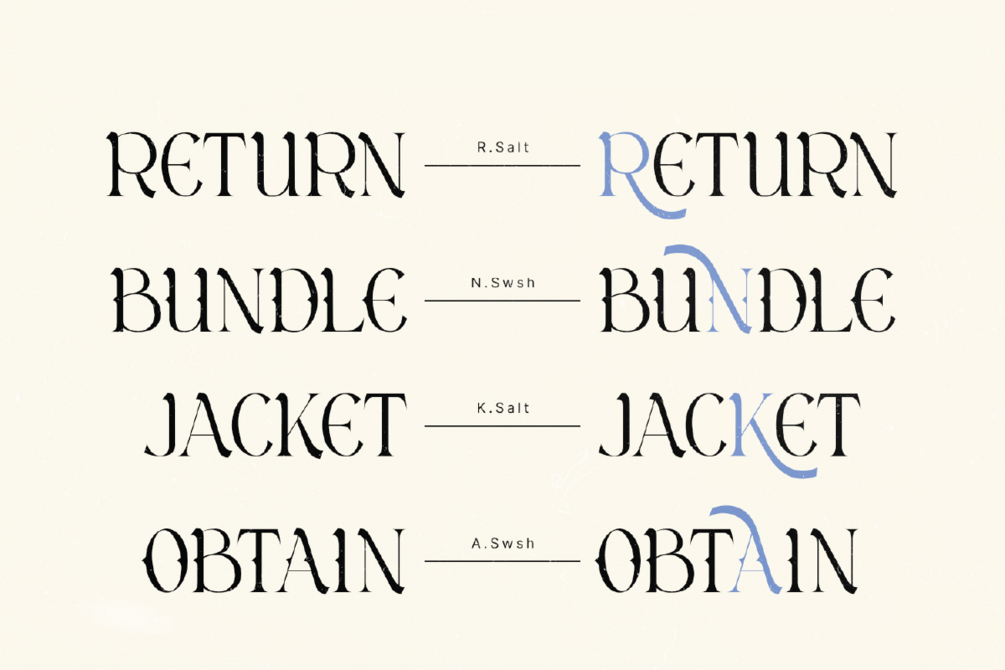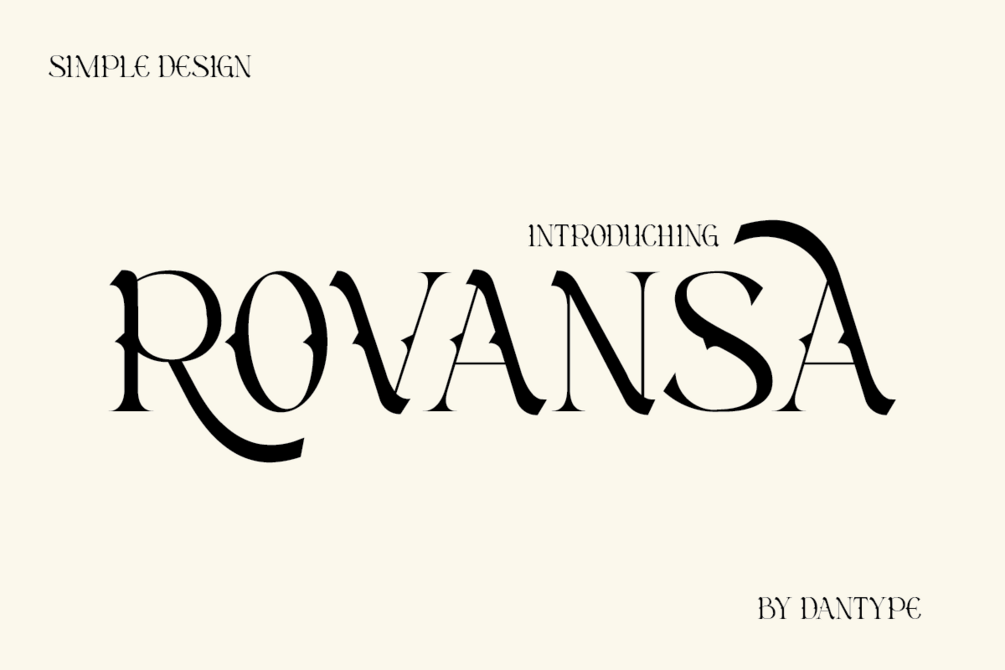
Rovansa
Rovansa Modern font. This font would be perfect for photography, watermarks, social media posts, advertisements, logos & branding, invitations, product design, labels, stationery, product packaging, special events, and other projects.